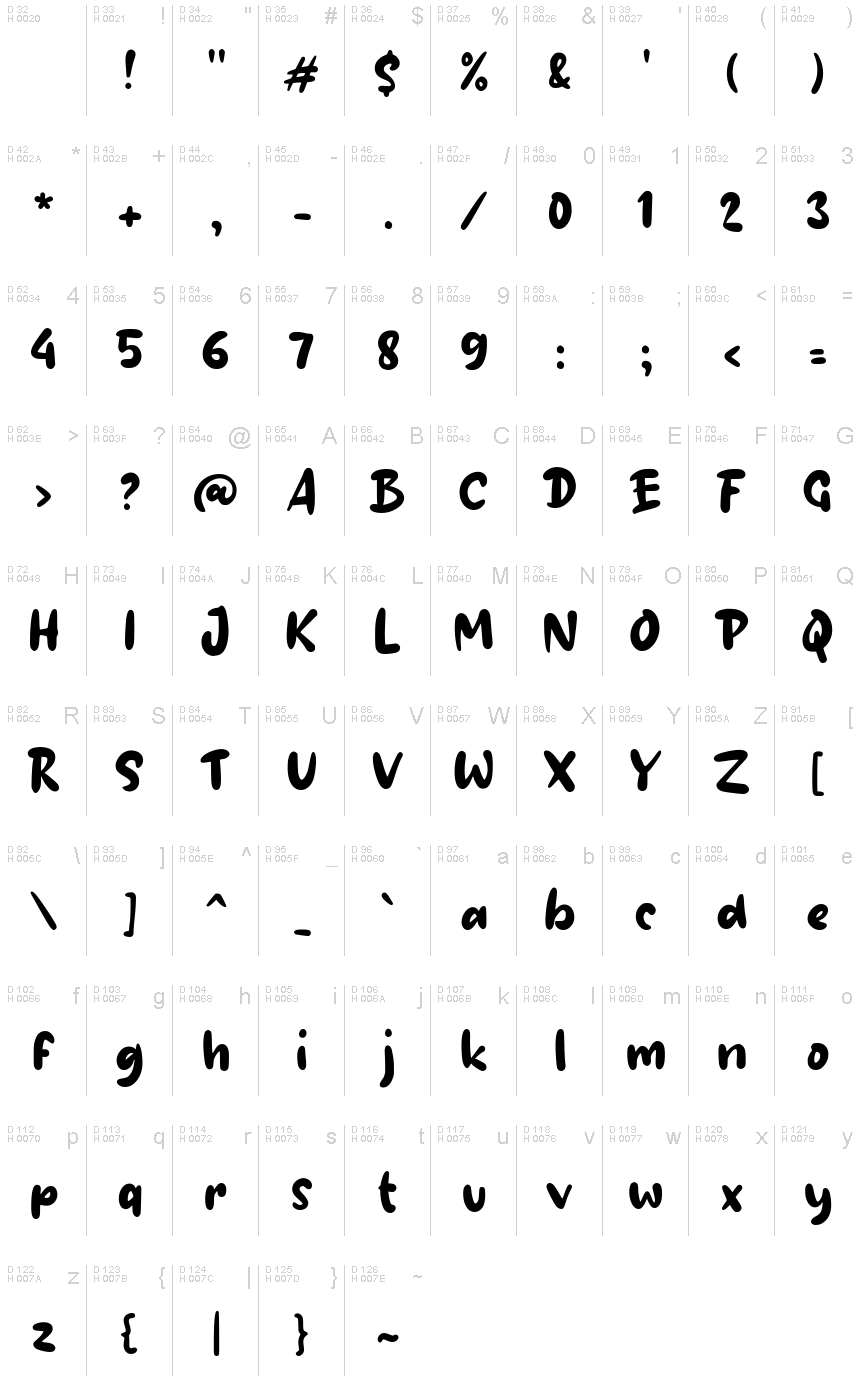
Gigi Putih
Gigi Putih is a captivating display font that exudes a whimsical, cartoon-inspired charm. Designed with bold, dynamic strokes, this font effortlessly commands attention, making it a standout choice for eye-catching titles, logos, and playful branding.
The exaggerated, rounded letterforms and playful, almost handwritten aesthetic lend a sense of fun and approachability to any design. Gigi Putih's versatility shines through, as it can seamlessly transition from energetic children's content to bold, attention-grabbing advertisements.
With its distinctive personality and impactful visual presence, this font is a compelling option for designers seeking to infuse their work with a touch of playful, cartoonish flair.